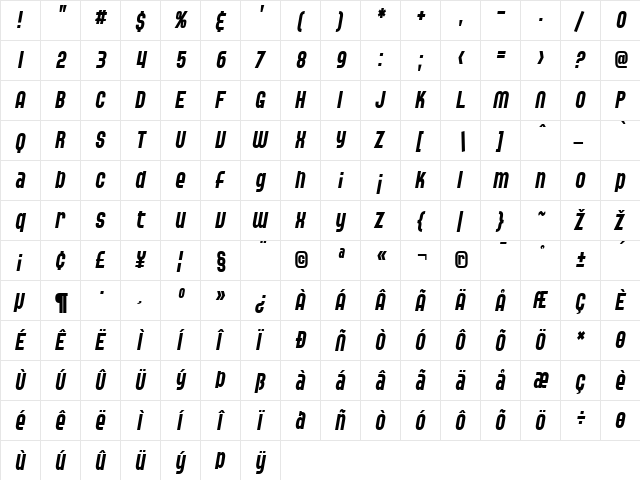
SF Speedwaystar Cond Italic
FoundryShyFoundry
DesignerDerek Vogelpohl
Design Context for SF Speedwaystar Cond Typeface
SF Speedwaystar Cond is a composed and adaptable typeface that performs quietly and consistently across a wide range of design contexts. The dynamic lean of this cut emphasises speed and emphasis in any layout. The condensed width makes it efficient for tight spaces without sacrificing legibility.
Pro Tip: Try SF Speedwaystar Cond for annotation and caption copy alongside an upright companion — the contrast in angle creates a dynamic but ordered typographic system.